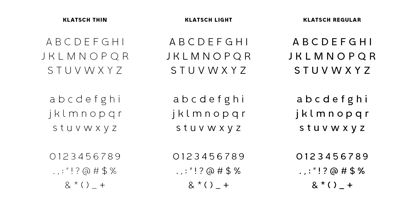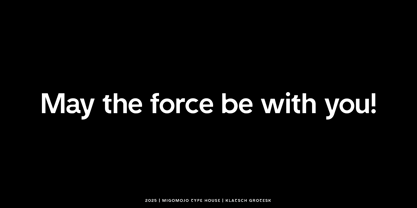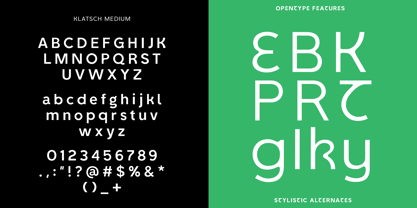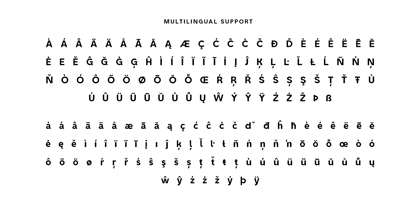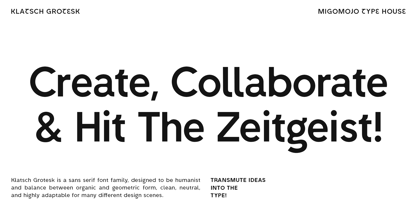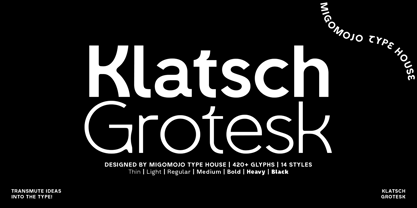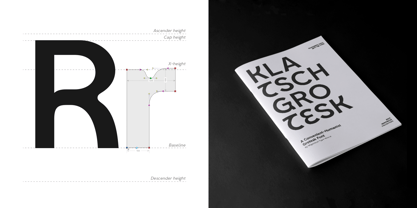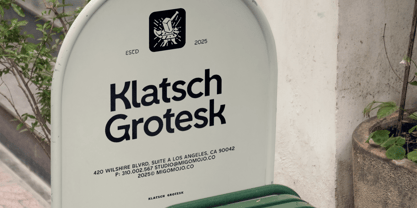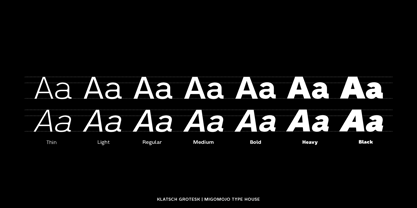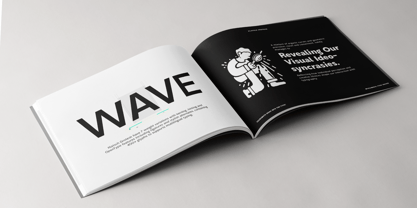
Klatsch Grotesk
by Migomojo Type House
The Klatsch Grotesk Font Family was designed by Komara Sani and published by Migomojo Type House. Klatsch Grotesk contains 14 styles and family package options. More about this family
Klatsch grotesk is a sans serif font family, designed to be humanist and balance between organic and geometric form, clean, friendly, and highly adaptable for many different design scenes. Klatsch Grotesk available in 14 styles, with over 420 characters, offering broad language and versatility. Klatsch offers endless creative possibilities. Perfect for adding a touch of joy to your contemporary designs, or for creating authentic humanist visuals. Cheers!
Designers: Komara Sani
Foundry: Migomojo Type House